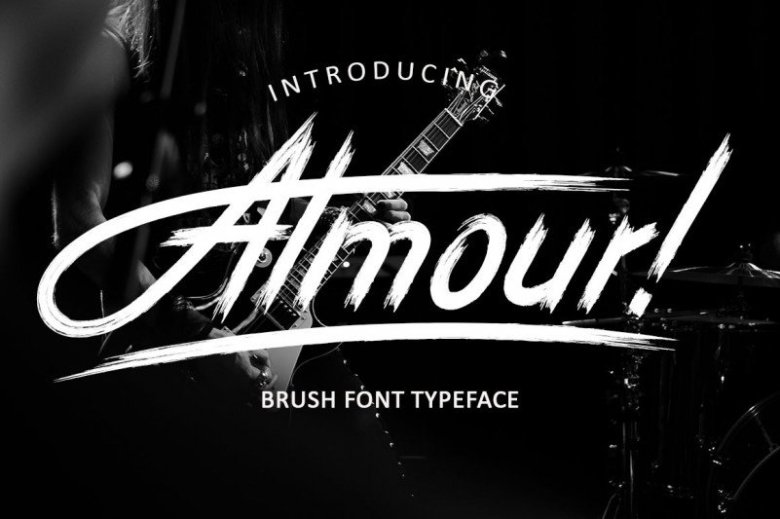
Almour! Font
Almour! Brush Font is a neat brushed display typeface created by indrotanwijoyo with beautiful and natural brush stroke. Very elegant brush font with multilingual and various alternative fonts in it. So “Almour!” is very-very suitable for almost all projects such as: logotypes, branding, wedding invitations, jewelery labels, classy debit-credit card, romantic cards, classy drink labels, packaging, spelling of names and others who need classy extraordinary touch.